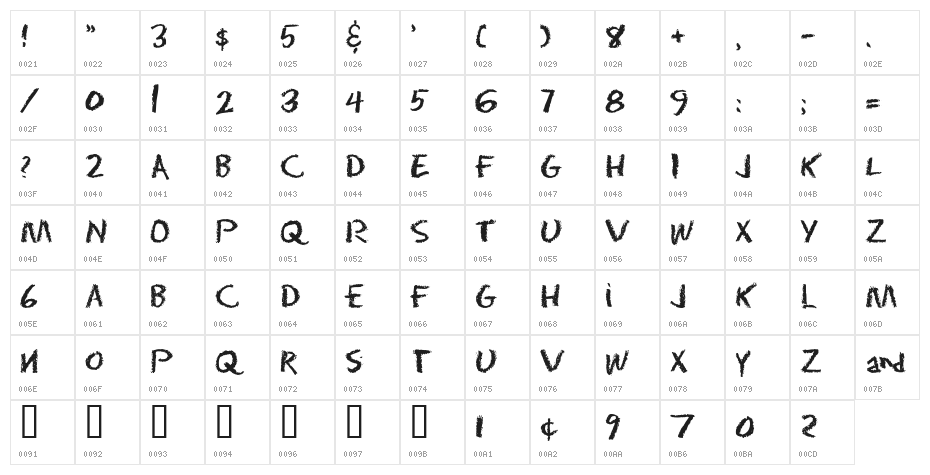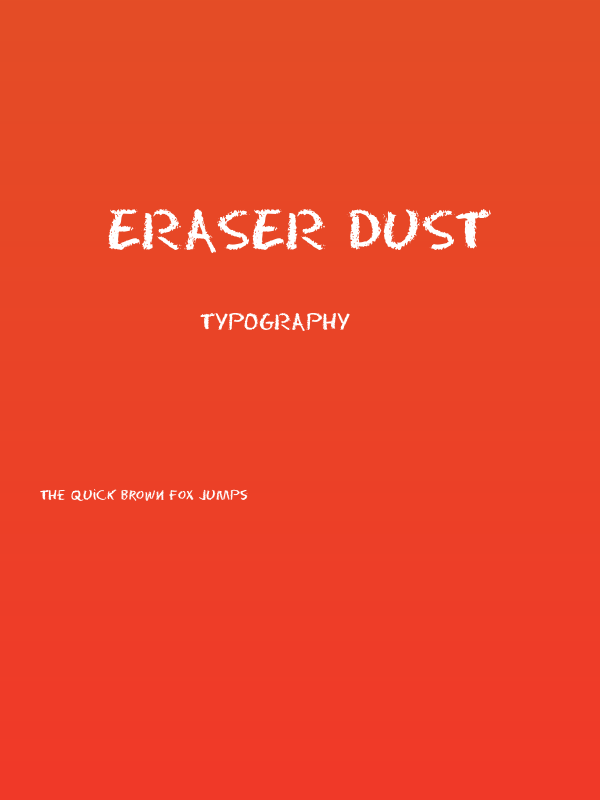
Eraser Dust Font
Eraser Dust Description
This font has a unique, textured appearance reminiscent of chalk or crayon strokes, giving it a playful and artistic feel. The characters are bold and slightly irregular, with rough edges that create a dynamic and energetic look. The uppercase and lowercase letters maintain a consistent style, while the numbers and special characters blend seamlessly with the overall design. This font's distinct style makes it stand out, offering a creative and informal vibe suitable for various artistic applications.
| Overall Style | Artistic, Playful |
| Use Case | Headlines, Posters, Creative Projects |
| Proposed Projects | Ideal for children's book covers, creative posters, playful branding, and artistic invitations. |